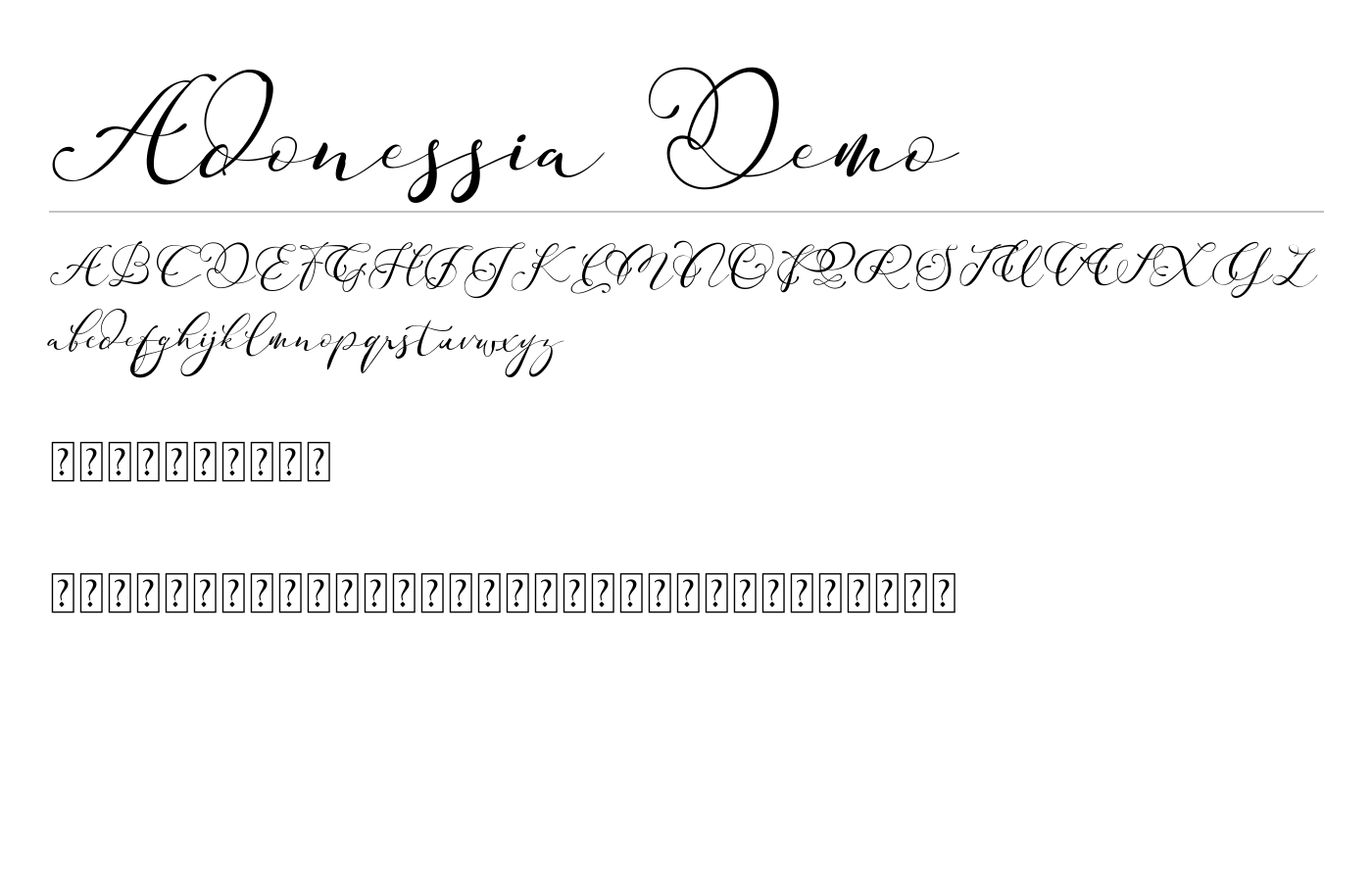
Adonessia Demo is an elegant script font characterized by its delicate, flowing strokes and graceful swashes that evoke a sense of sophistication and charm. With its high contrast between thin and thick lines and ornate letterforms, it is perfect for invitations, luxury branding, and stylish headlines where a refined, decorative touch is desired. This font brings a romantic, artistic flair that works beautifully in formal and feminine design projects.
Adonessia Demo Font
About Adonessia Demo Font
| Font family | Adonessia Demo Font |
| Designer | Muhammad Nur Alamsyah |